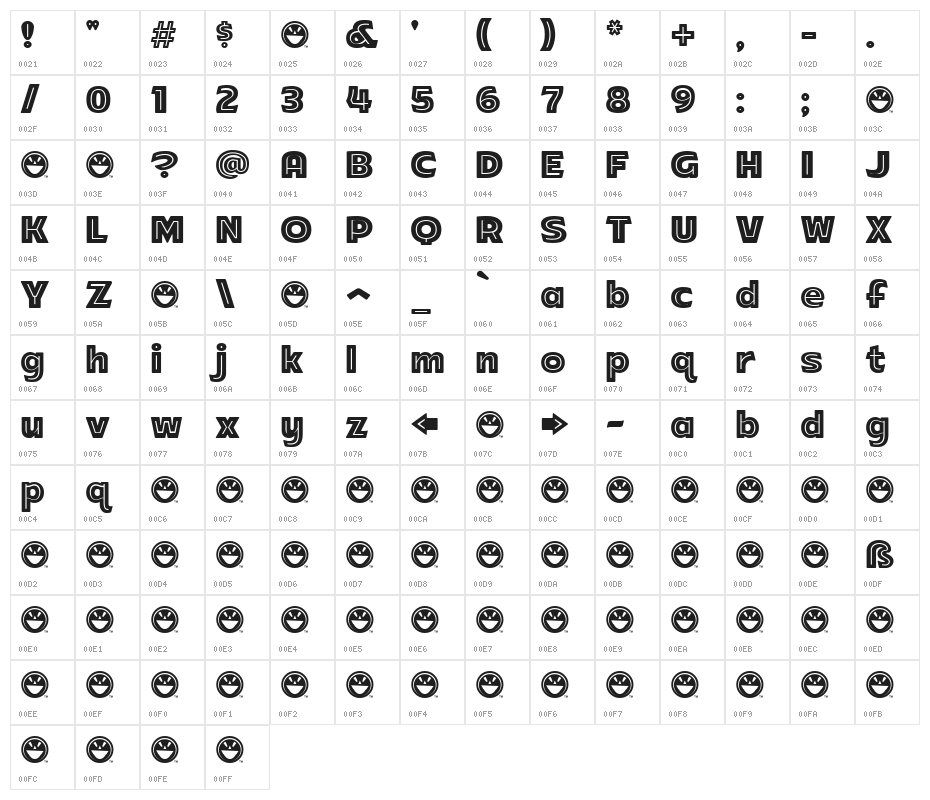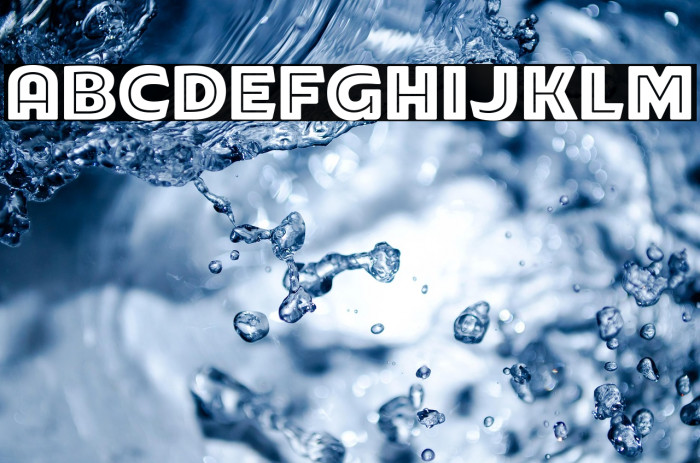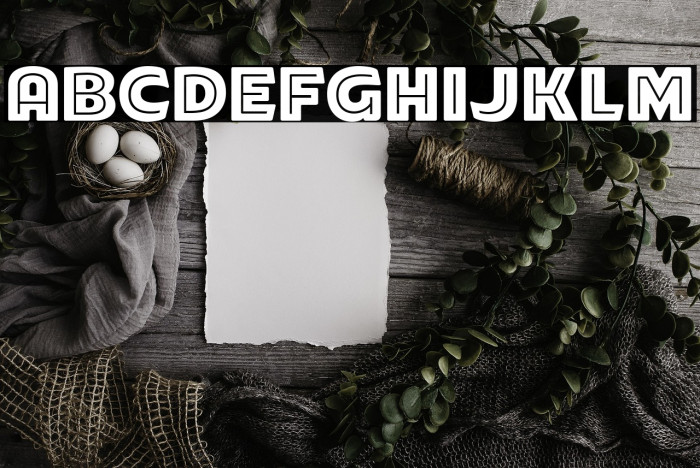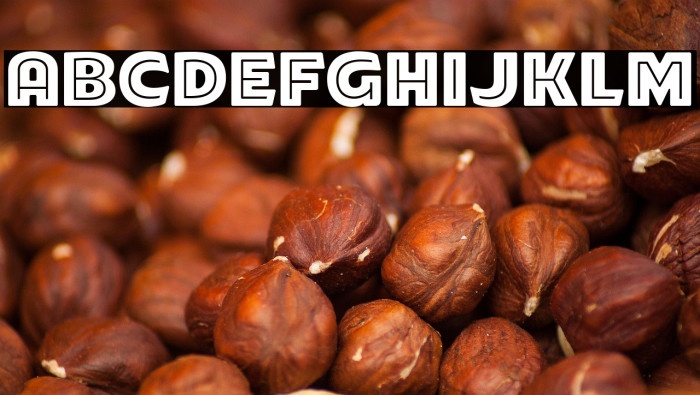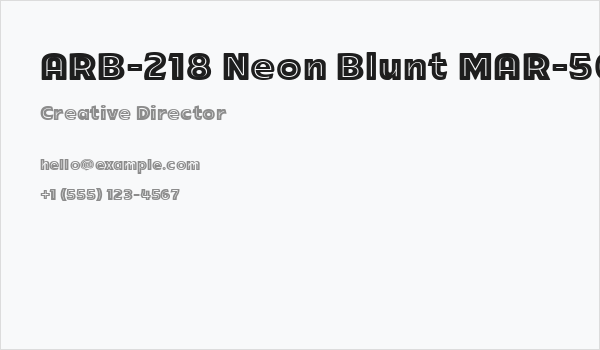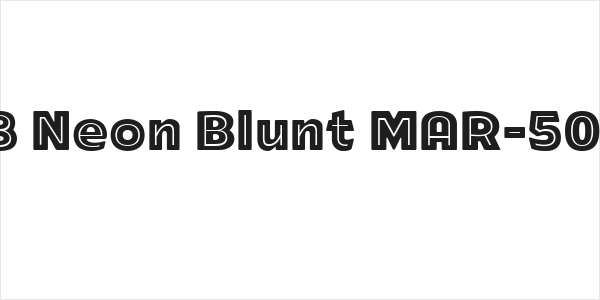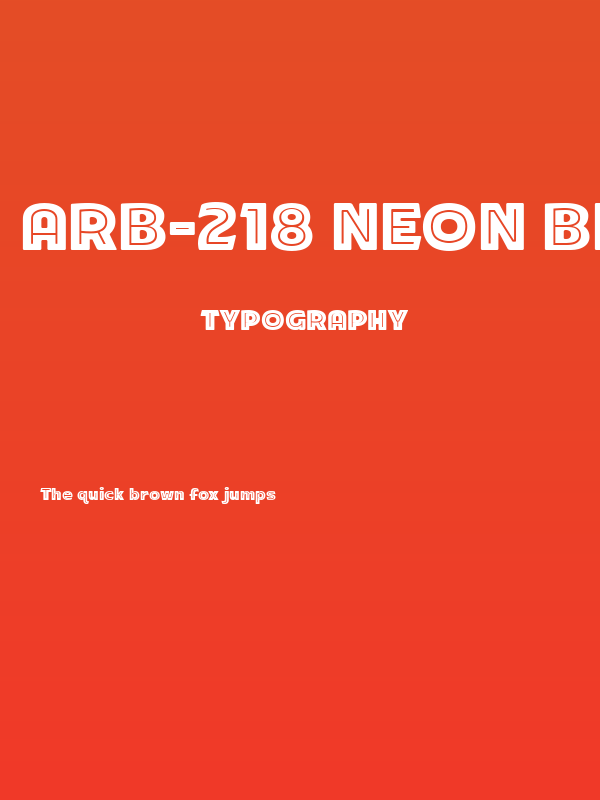
ARB-218 Neon Blunt MAR-50 Normal Font
ARB-218 Neon Blunt MAR-50 Normal Description
This font features a bold, rounded style with a distinct outline that gives each character a three-dimensional appearance. The uppercase and lowercase letters maintain a consistent weight, providing a uniform look across the alphabet. The numerals and special characters follow the same design principles, ensuring cohesion throughout. The font's playful and modern aesthetic makes it suitable for eye-catching designs. Its thick strokes and outlined forms create a strong visual impact, making it ideal for projects that require a bold statement.
| Proposed Projects | Ideal for posters, logos, headlines, and any design requiring a bold, attention-grabbing font. |